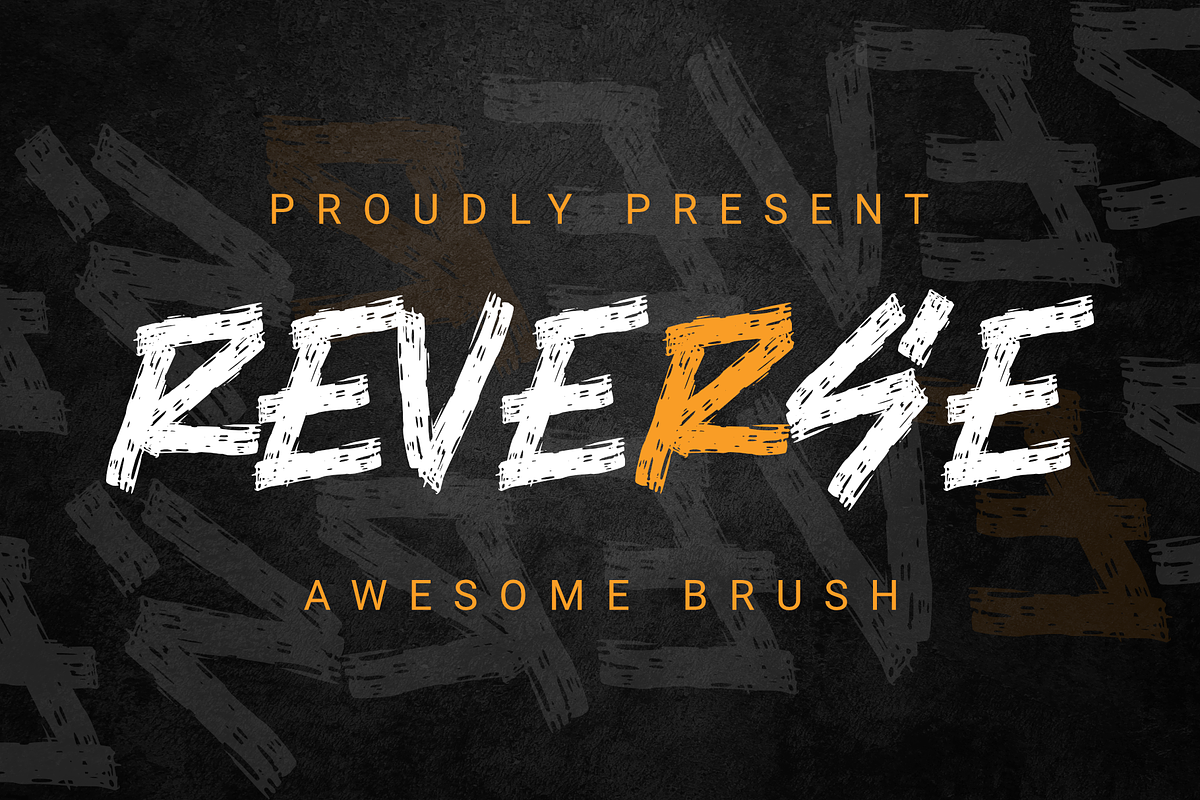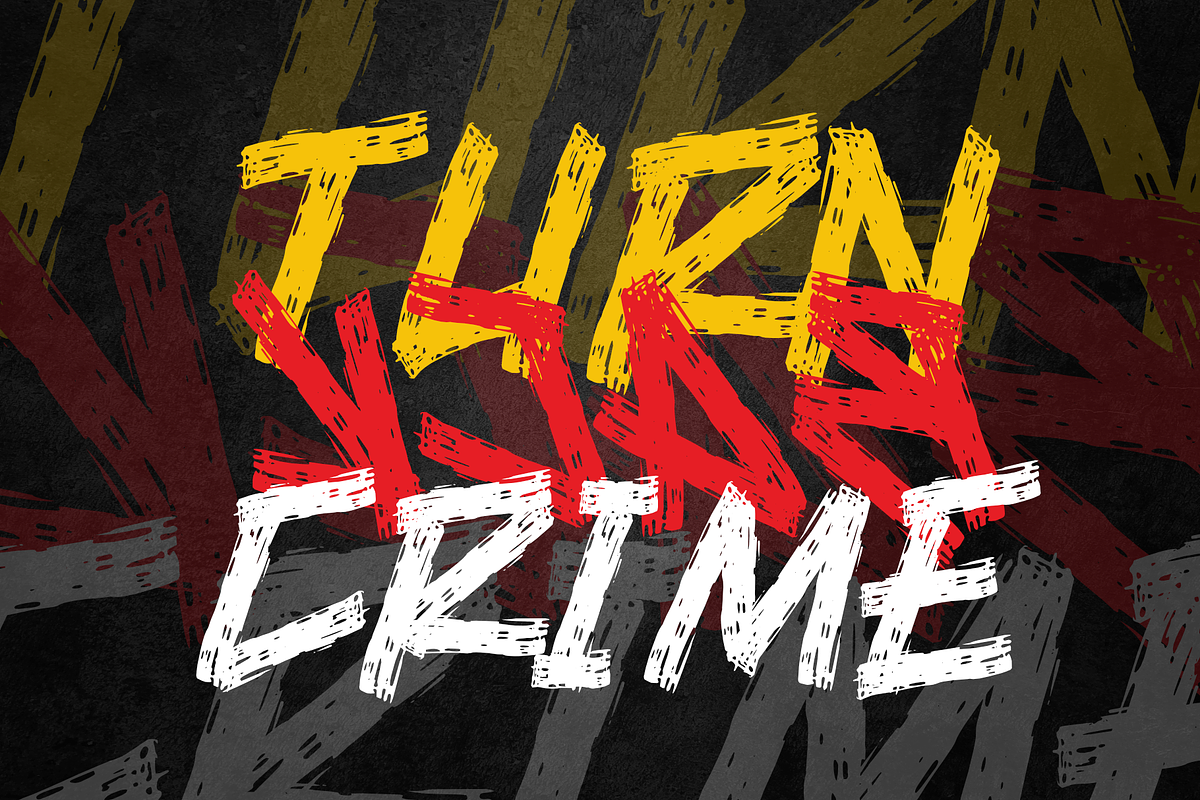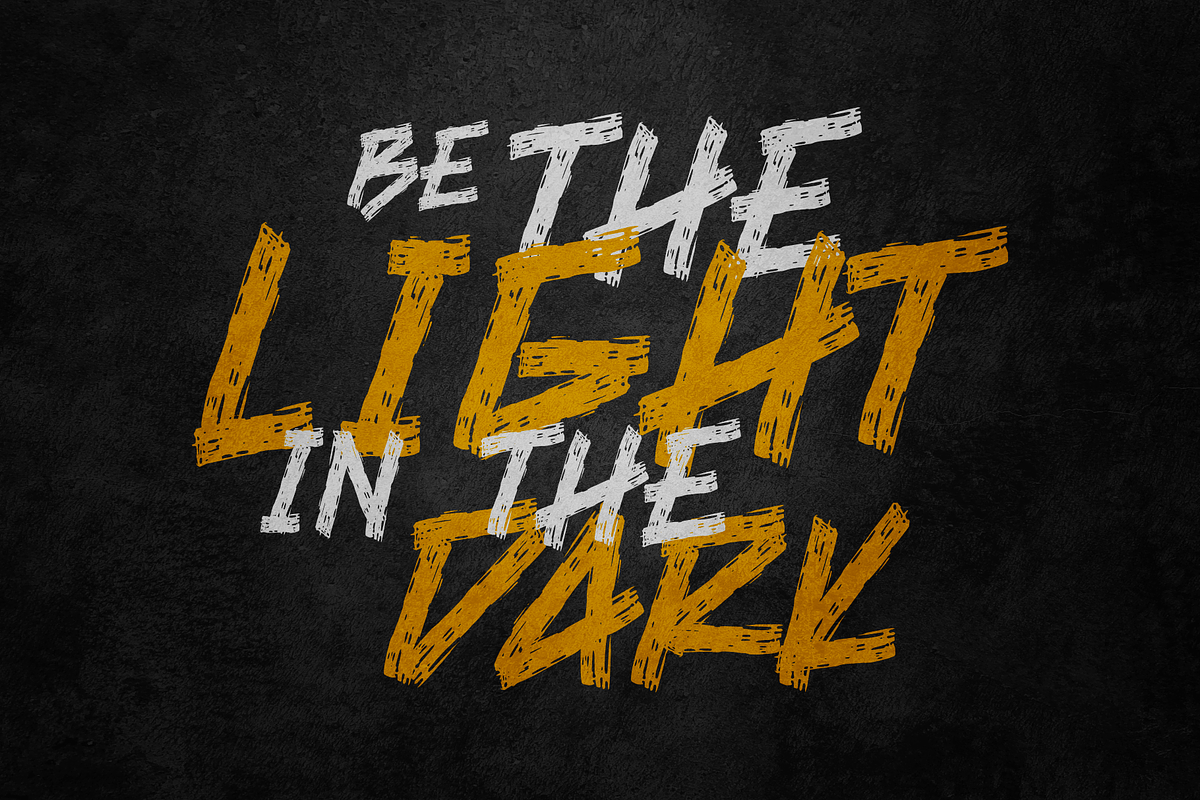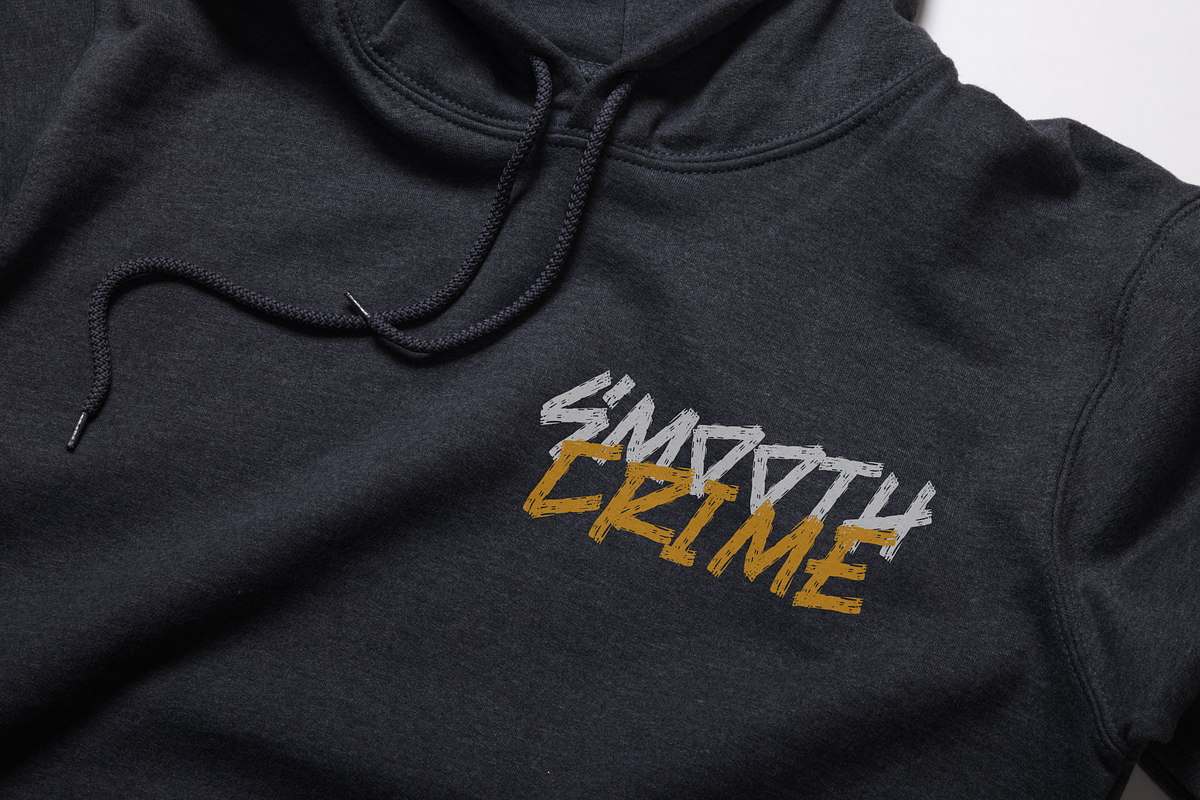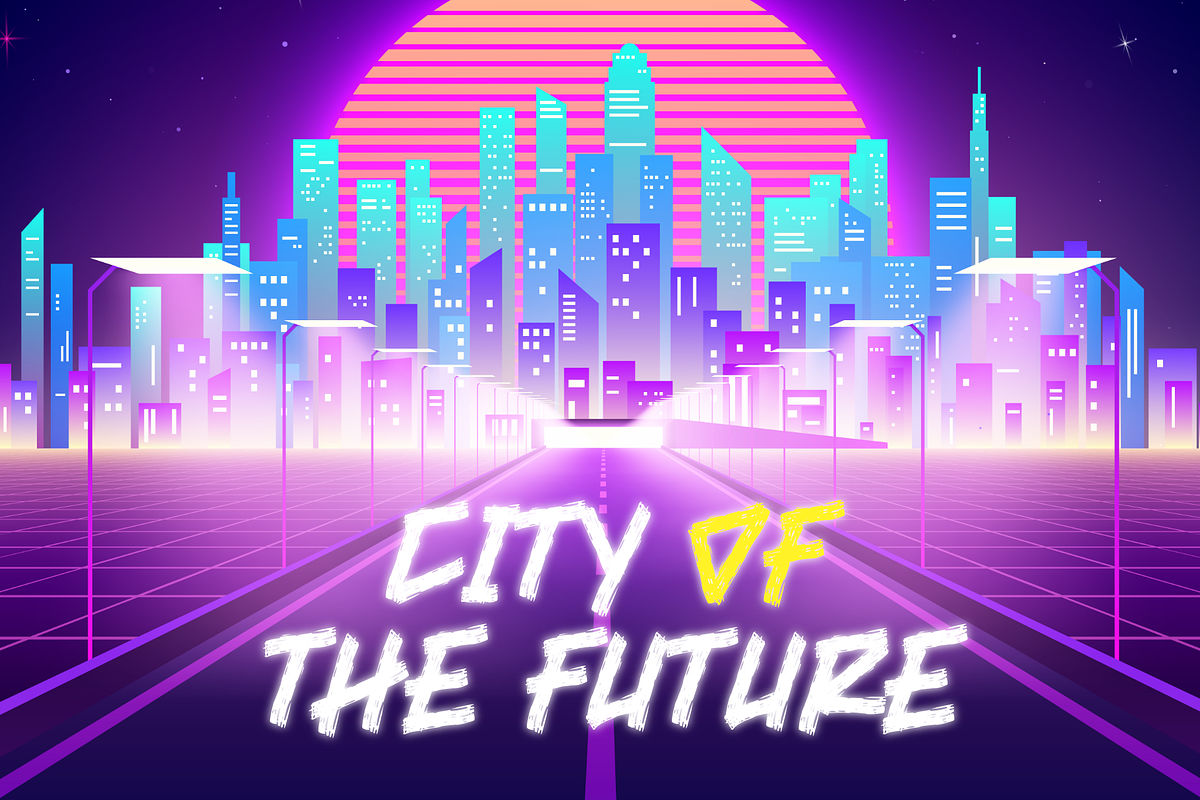
Reverse
Reverse is a unique, cool, and stunning brush font that's ready for any designer need.
Reverse is perfect for use in event design projects, posters, t-shirt design, branding, cyberpunk, advertisements, titles, and more. and feel free to collaborate on designs, these fonts will enhance the quality of your designs.